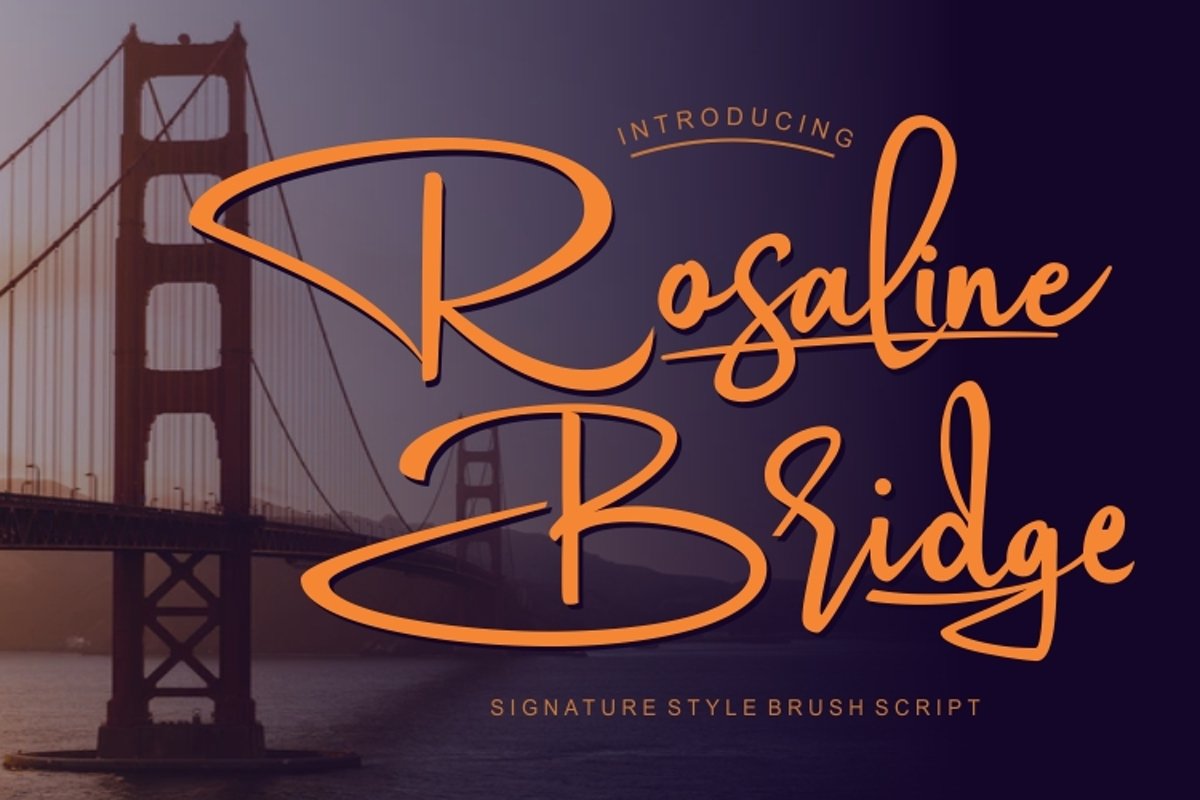
Rosaline Bridge Signature Style font
Rosaline Bridge
Rosaline Bridge Script font comes with a signature style that is made with hand scratches but with some variations on digital, with classic themes and beautiful feminine signatures but thick so it is suitable for design needs for wedding themes, logotype signatures, quotes, crafts, and still many, with Rosaline Bridge's opentype features more beautiful and attractive to be used as typography art that is tailored to the needs.
Opentype Feature:
Ligature
Salt
Ss01-Ss03
Swash
smcp